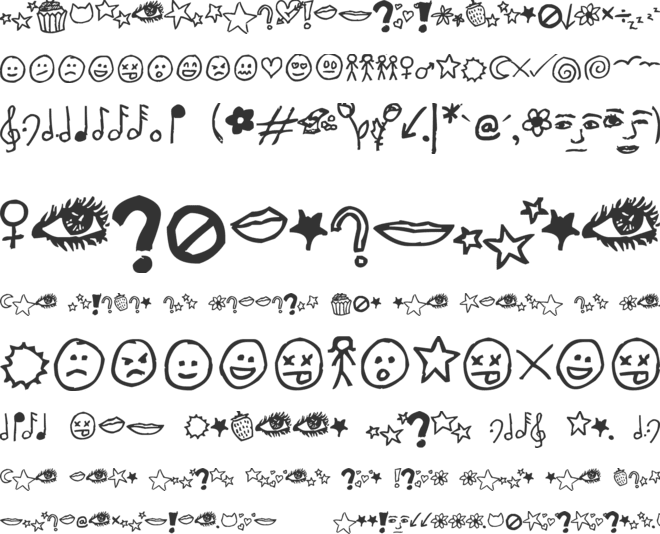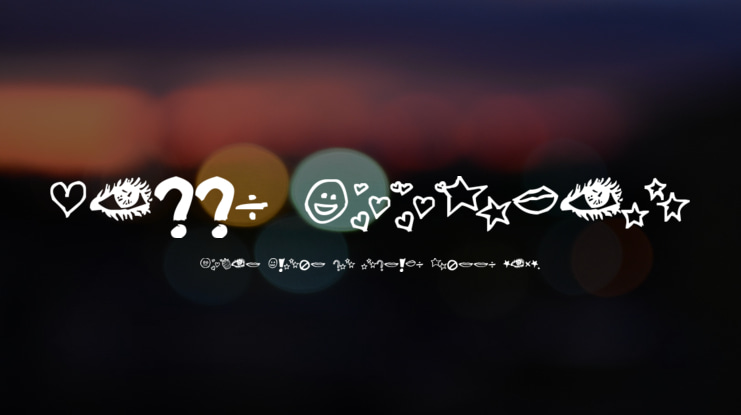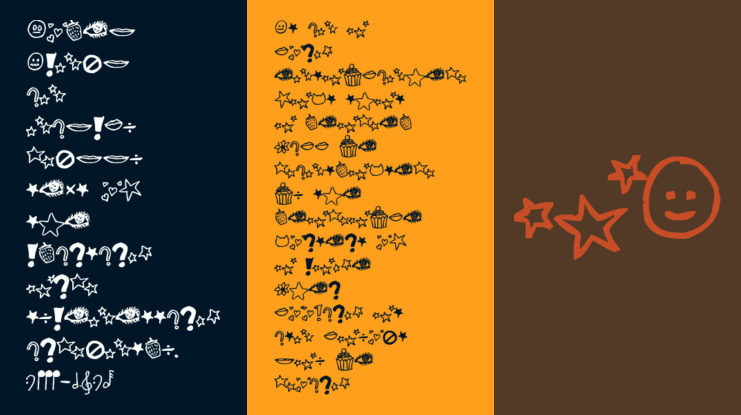
Jenny Doodles Font
This is my second font. The first one is called 'The One Jenny Made', which is from my handwriting. This was an attempt at a dingbats/emoticon/symbols style. I hope you like it :) Please share with your friends if you do.